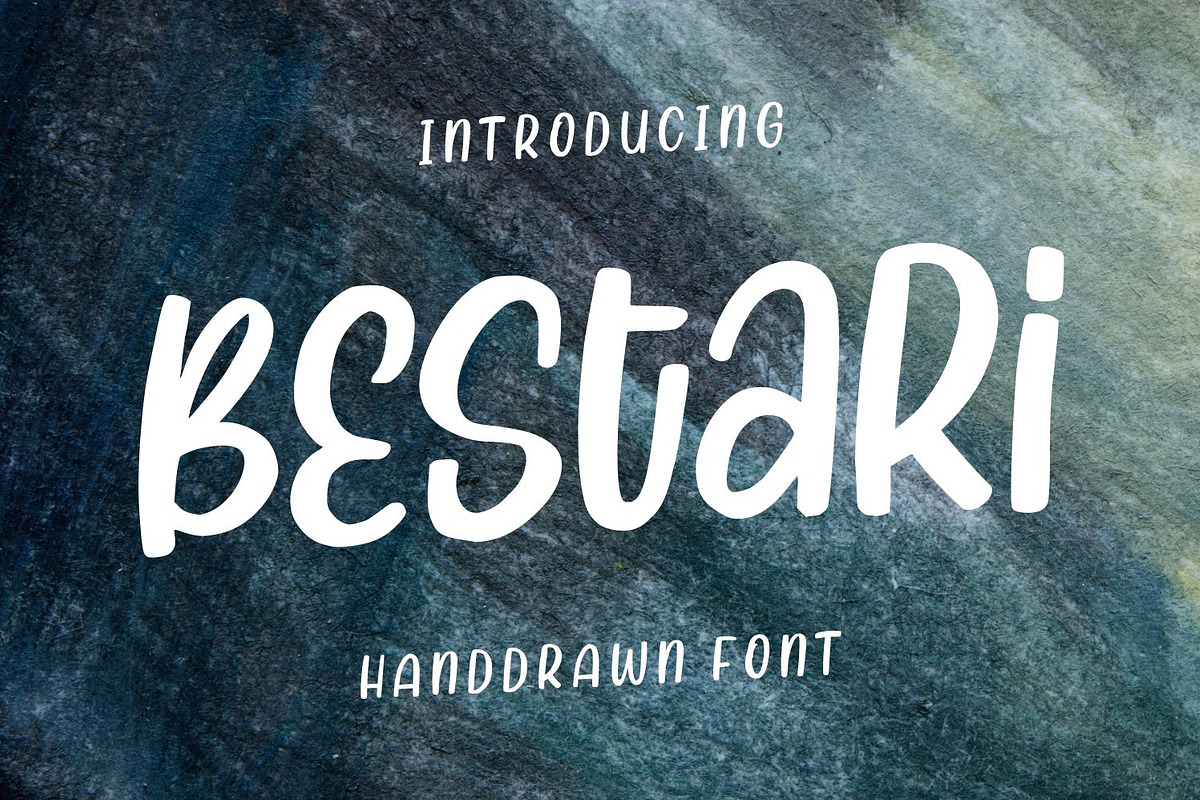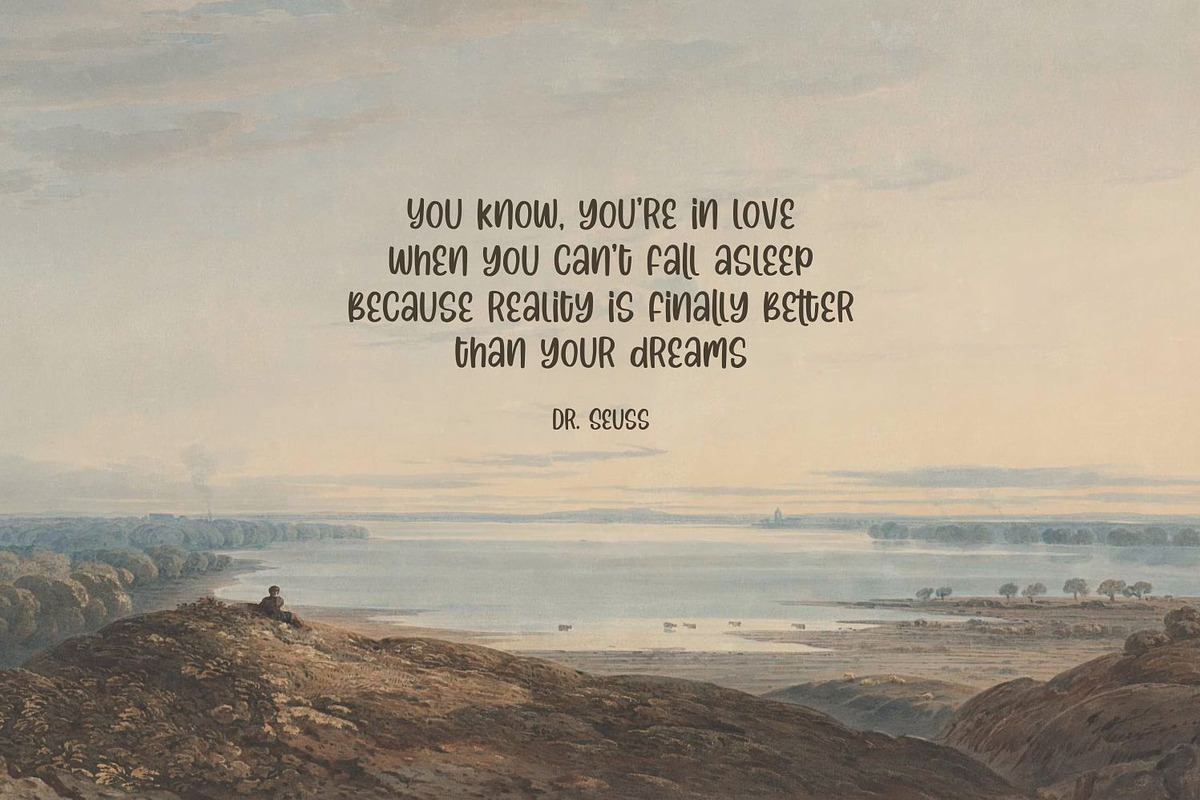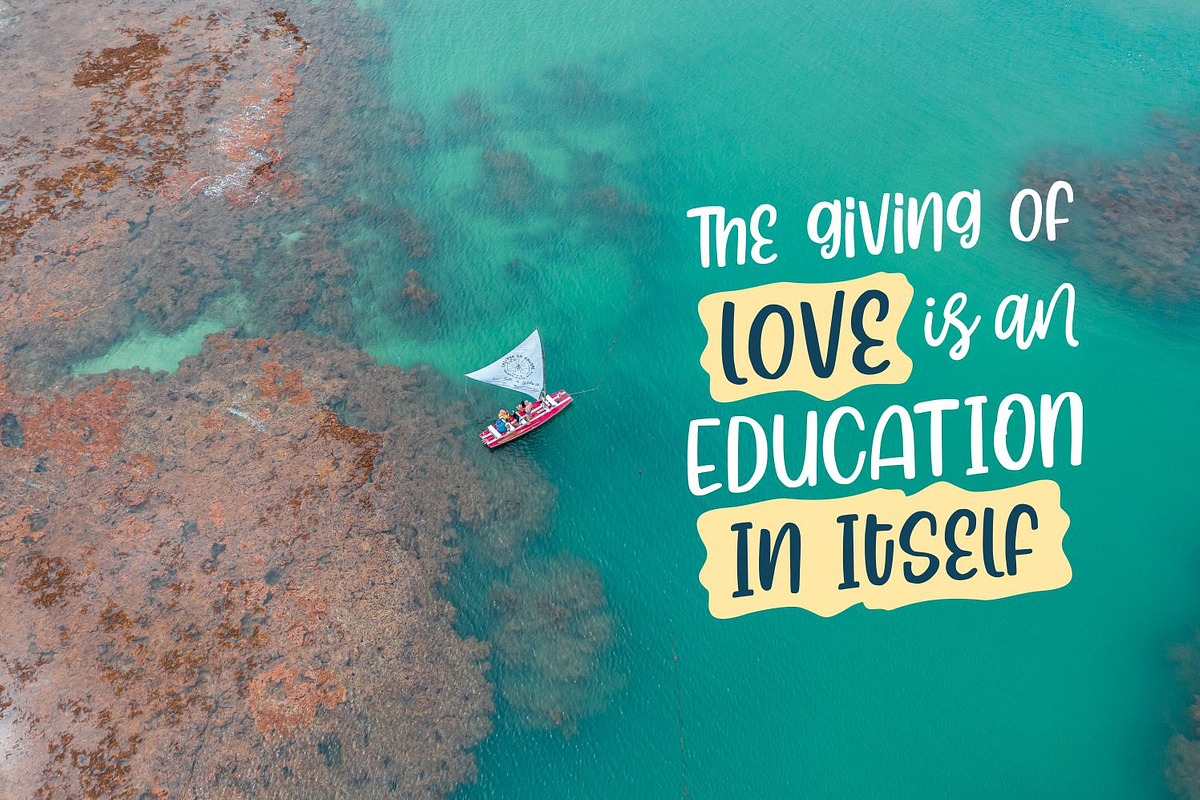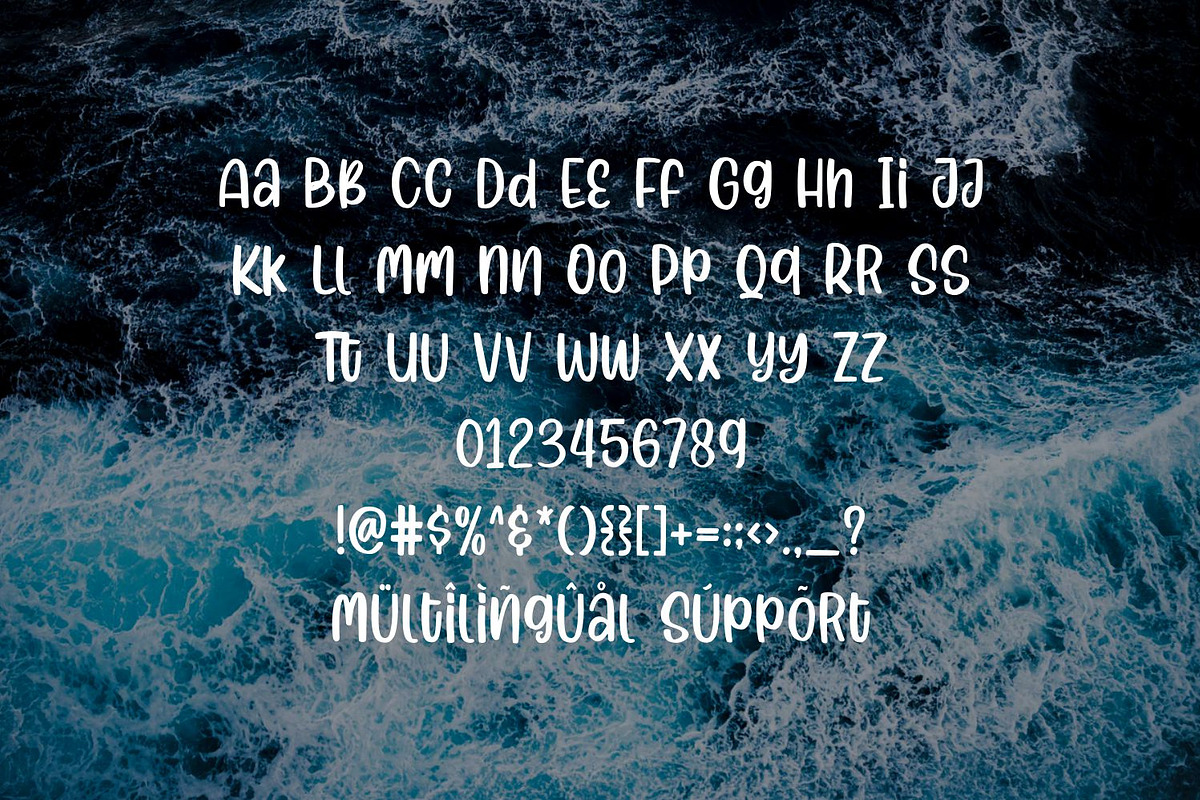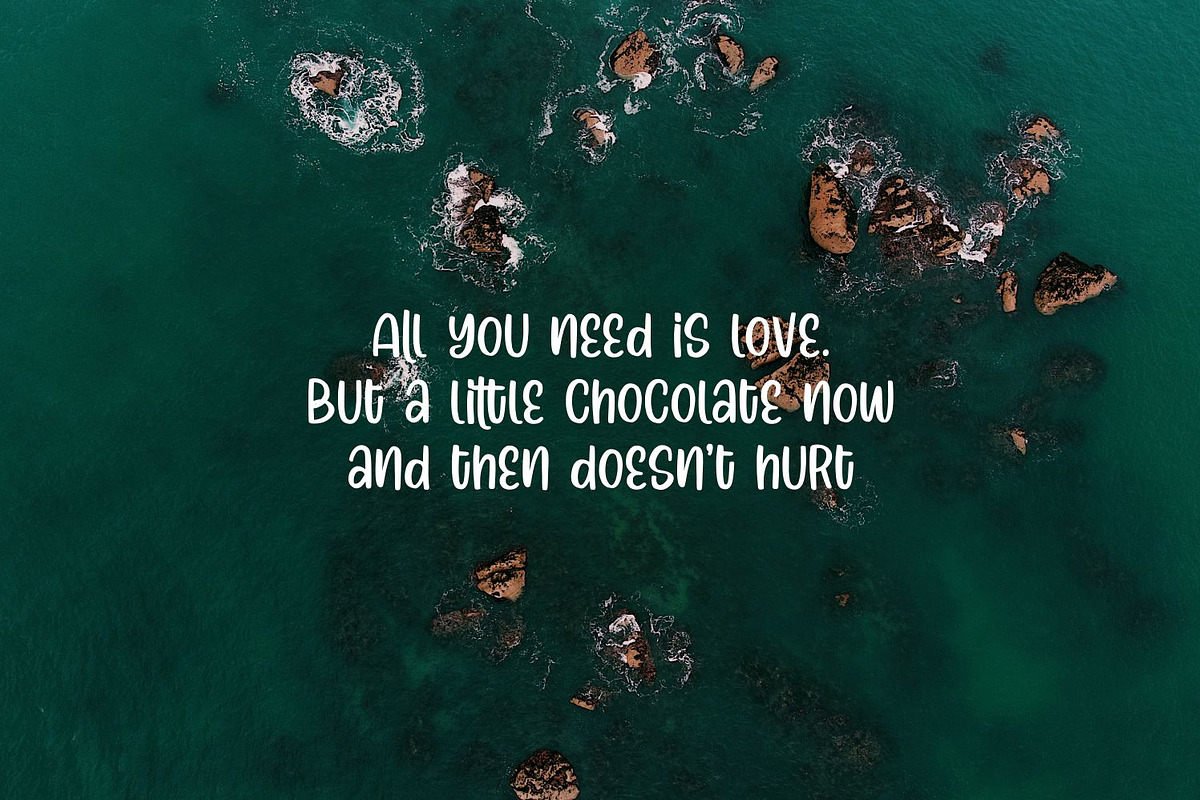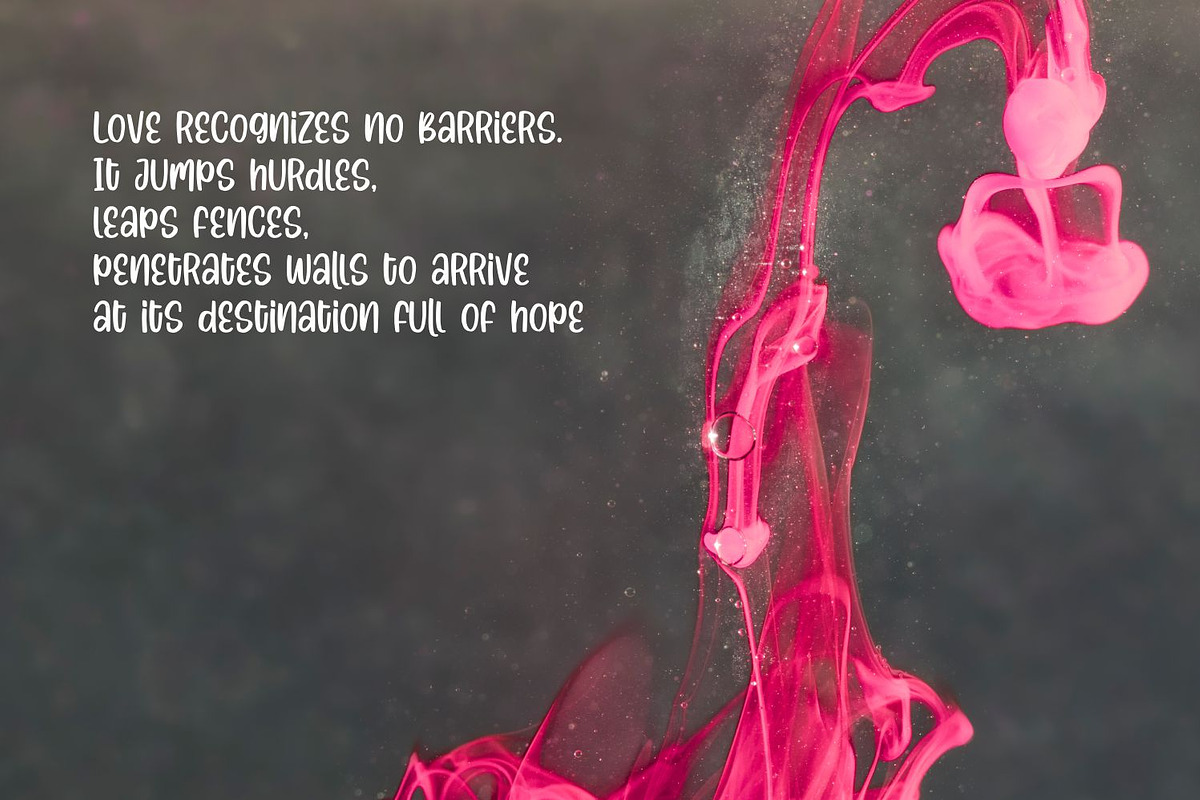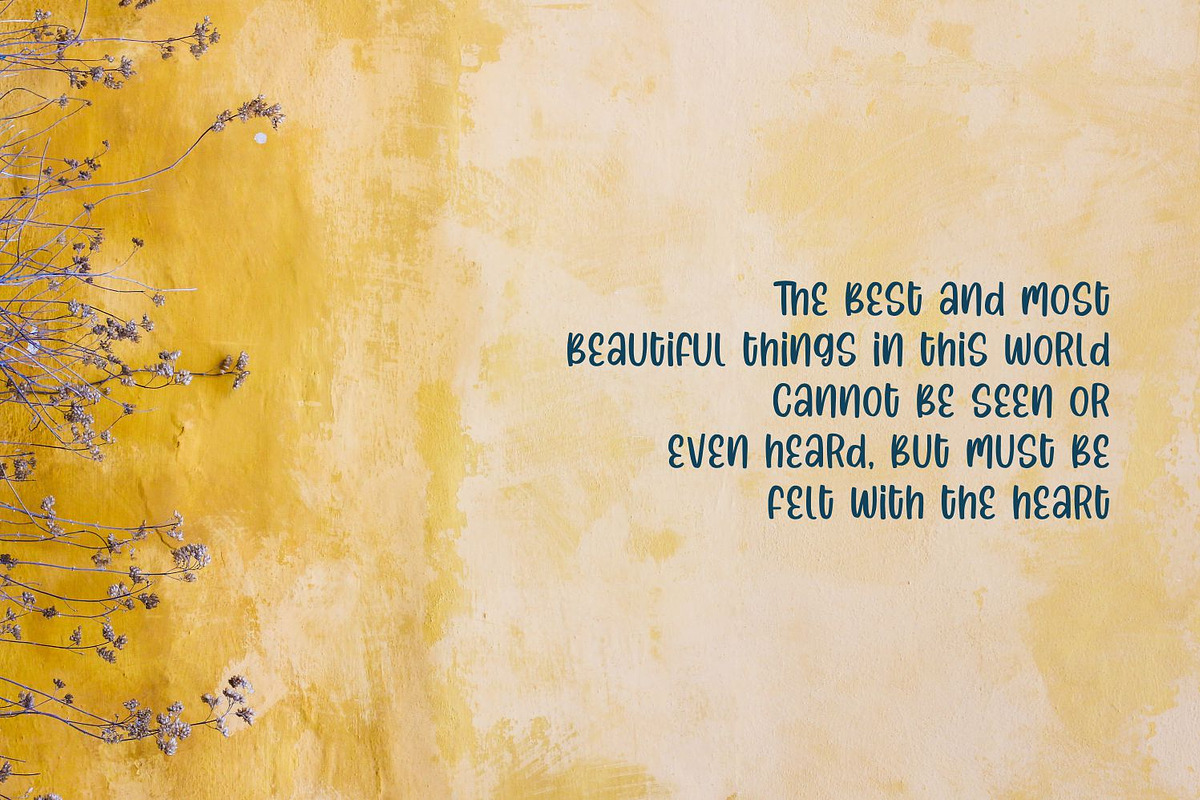
Bestari - Handdrawn Font
Introducing Bestari - Handdrawn Font
Bestari is the perfect font for all your classical and minimalism designs. The main font file is equipped with ordinary characters. Everything is made with the natural handdrawing. So you can be sure they will work well together!
It is suitable for you to use in making t-shirt design, quote, label, packaging, logo type, or long writing. Because we have compiled kerning and matrices that are tailored to your needs.
Why Bestari - Handdrawn Font is worth a look
Bestari - Handdrawn Font by Good Java Studio fits naturally into Branding, posters, packaging, typography.